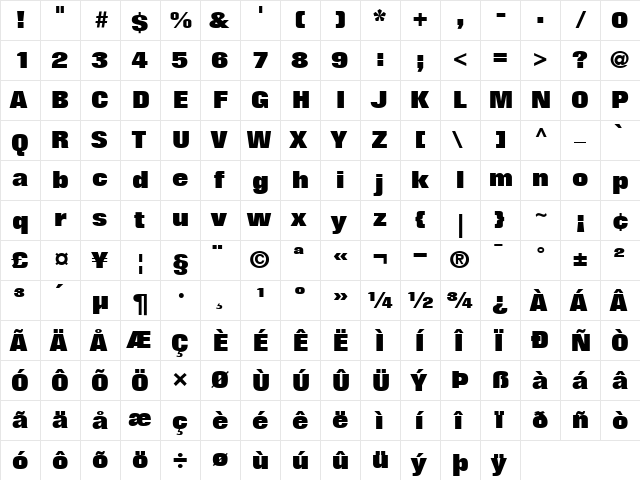
Folio-ExtraBold Extra Bold
Design Context for Folio-ExtraBold Typeface
Folio-ExtraBold takes a measured approach to typography — its balanced proportions and neutral character make it a reliable workhorse for both digital and print work. The heavy weight commands attention and anchors typographic hierarchies.